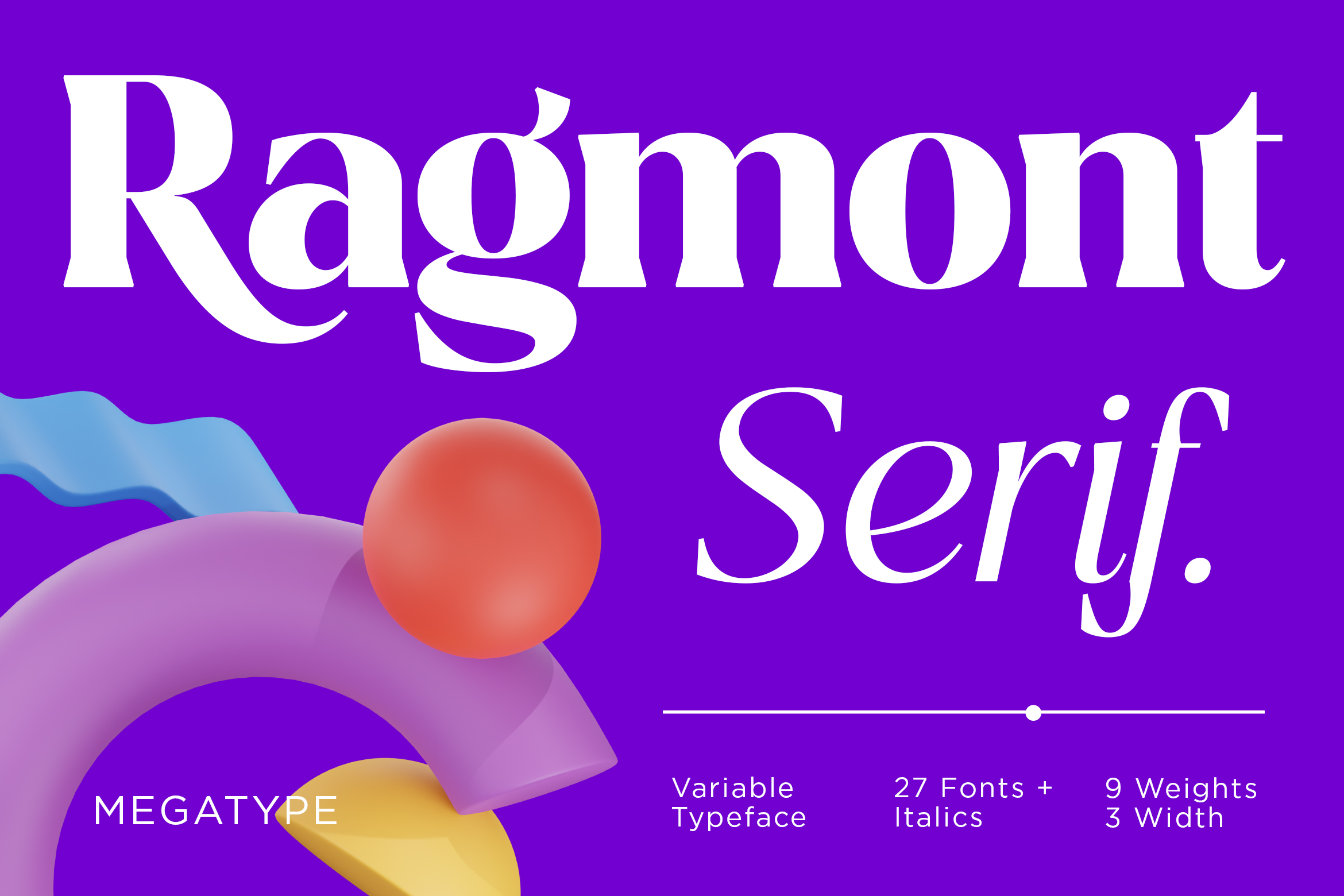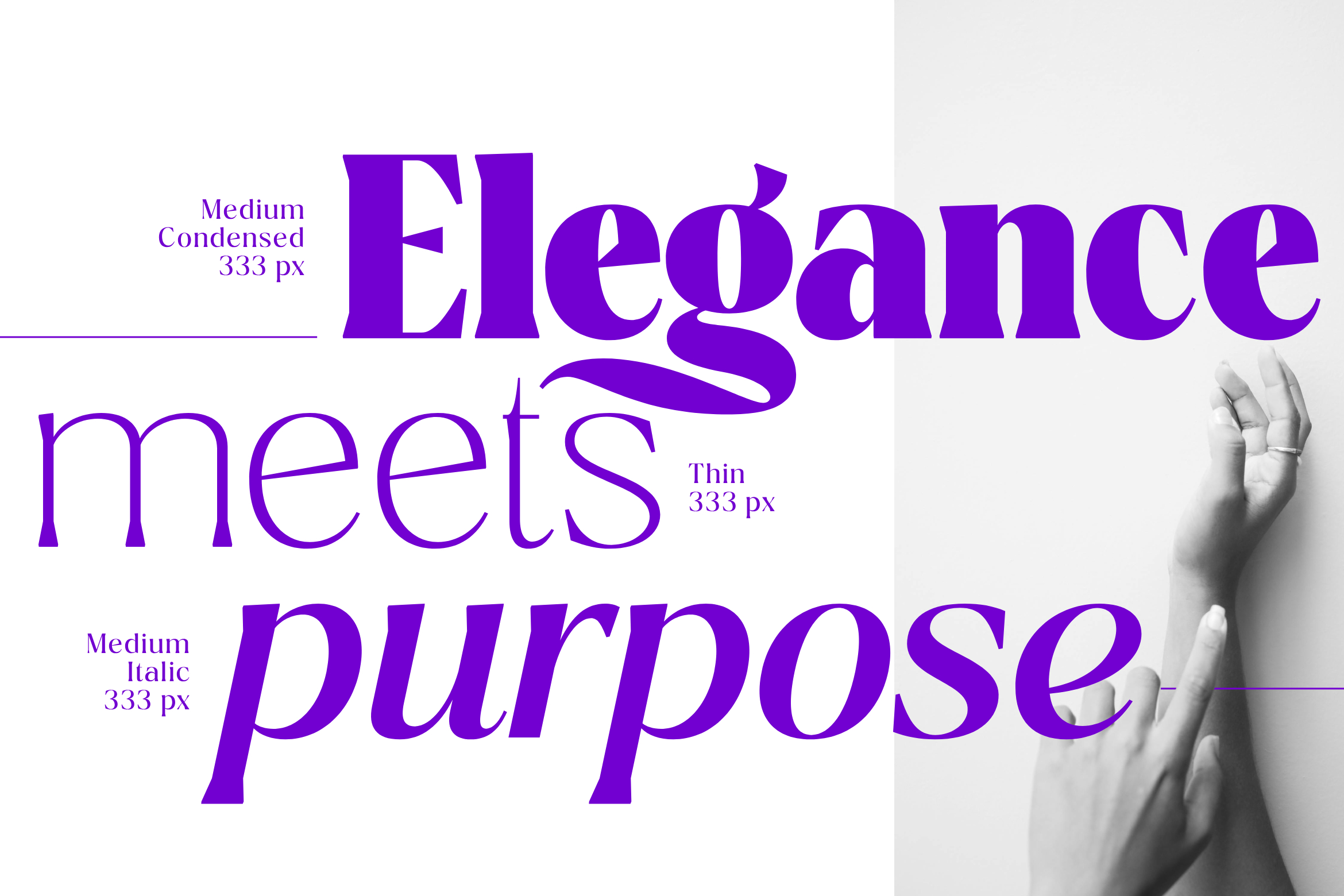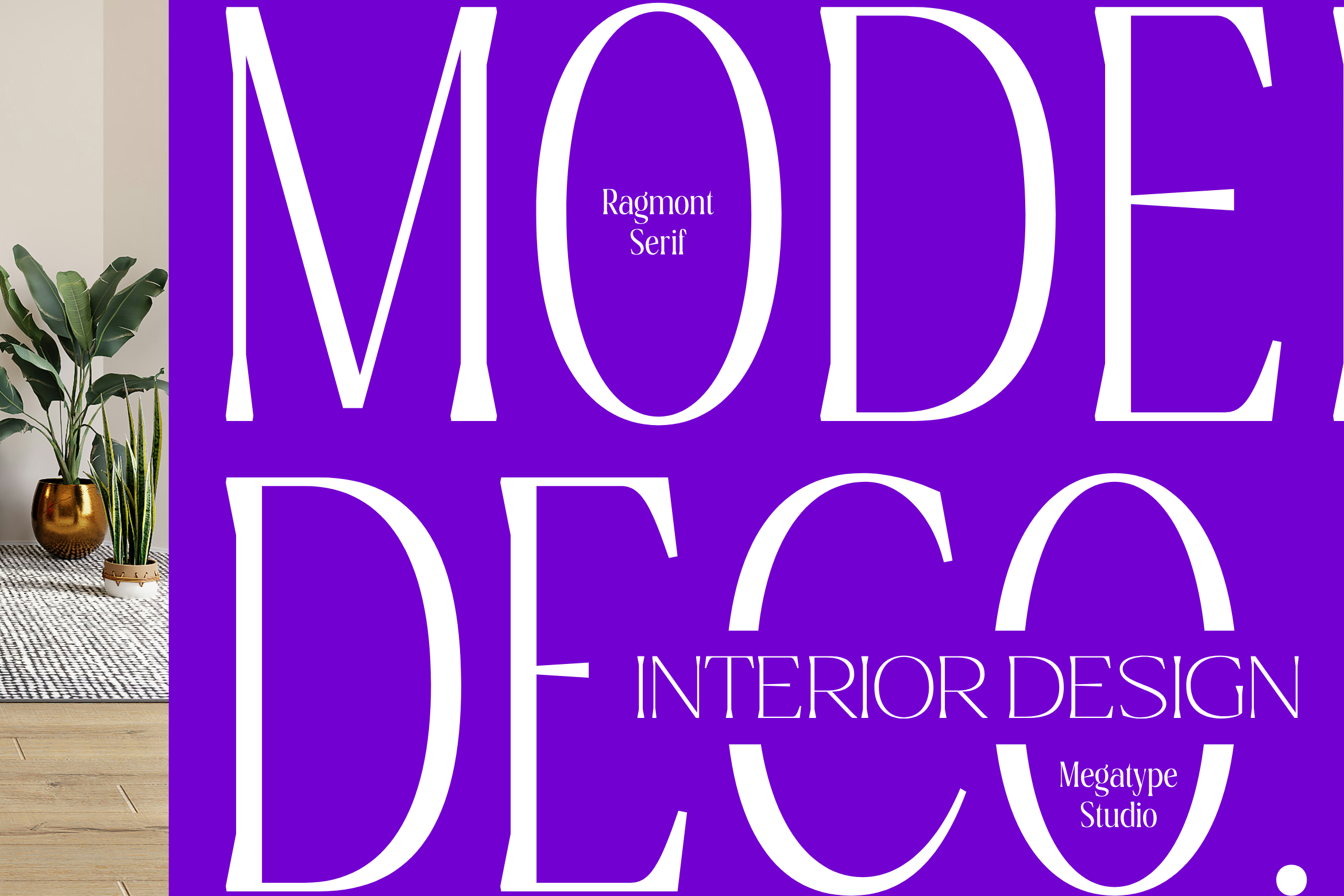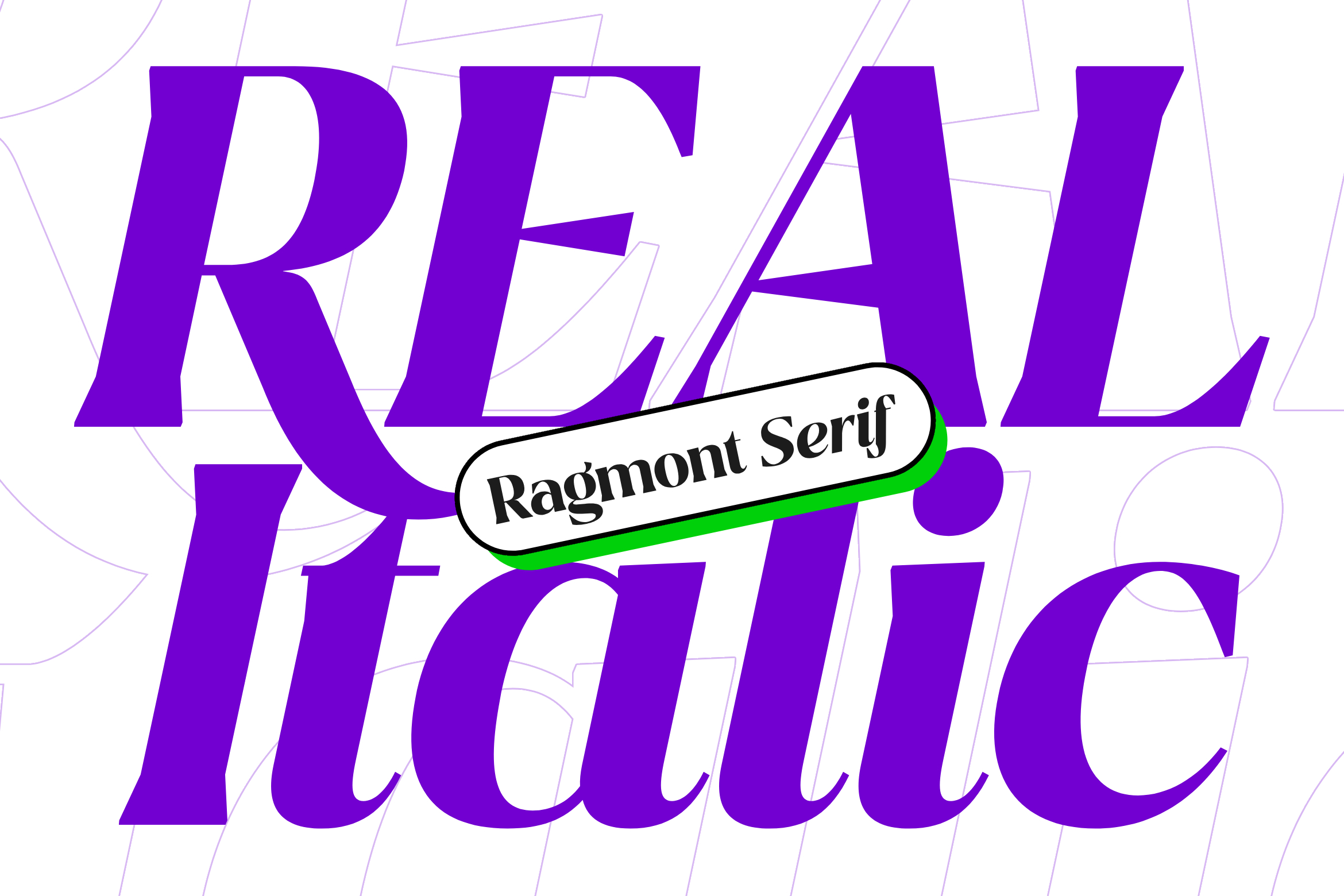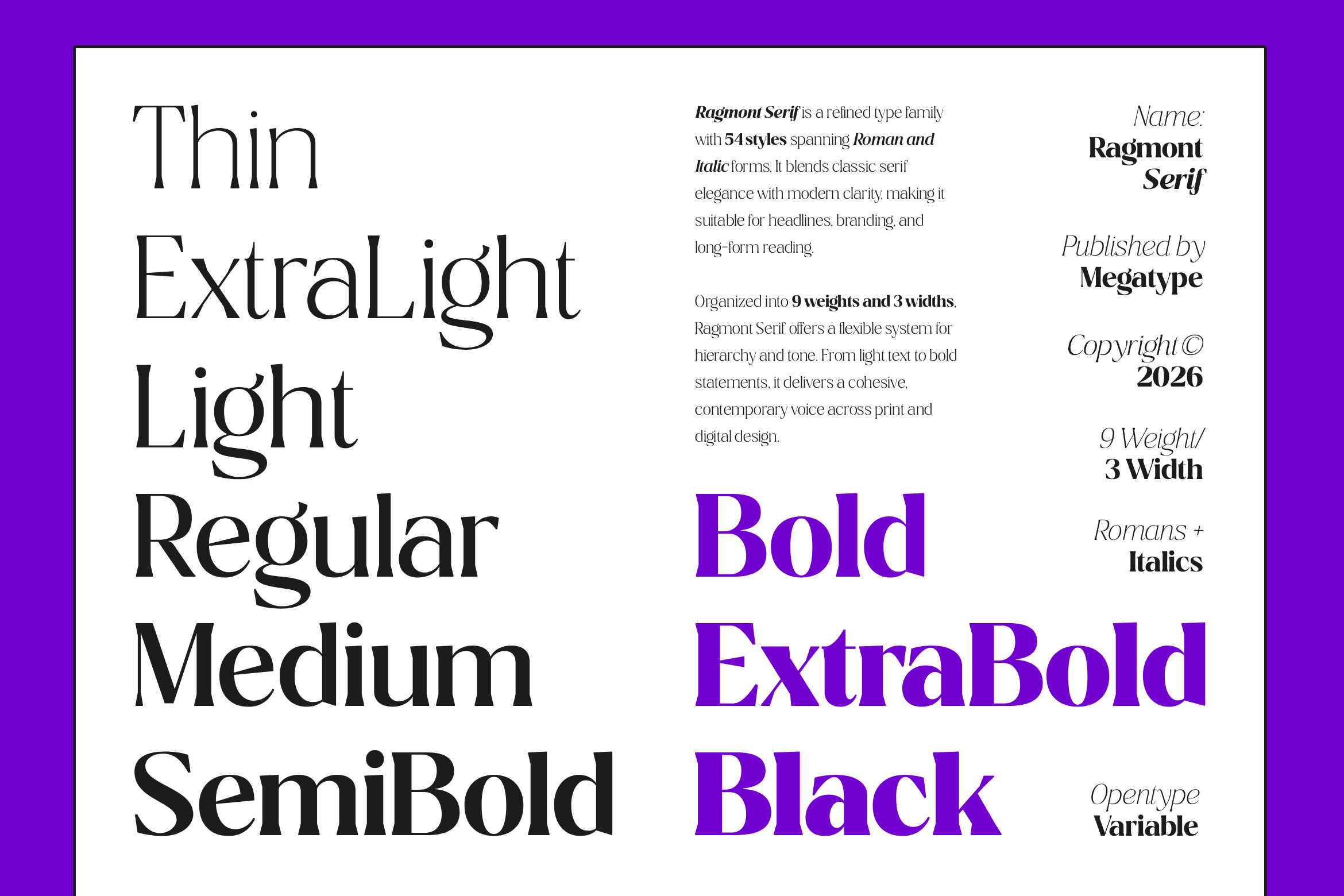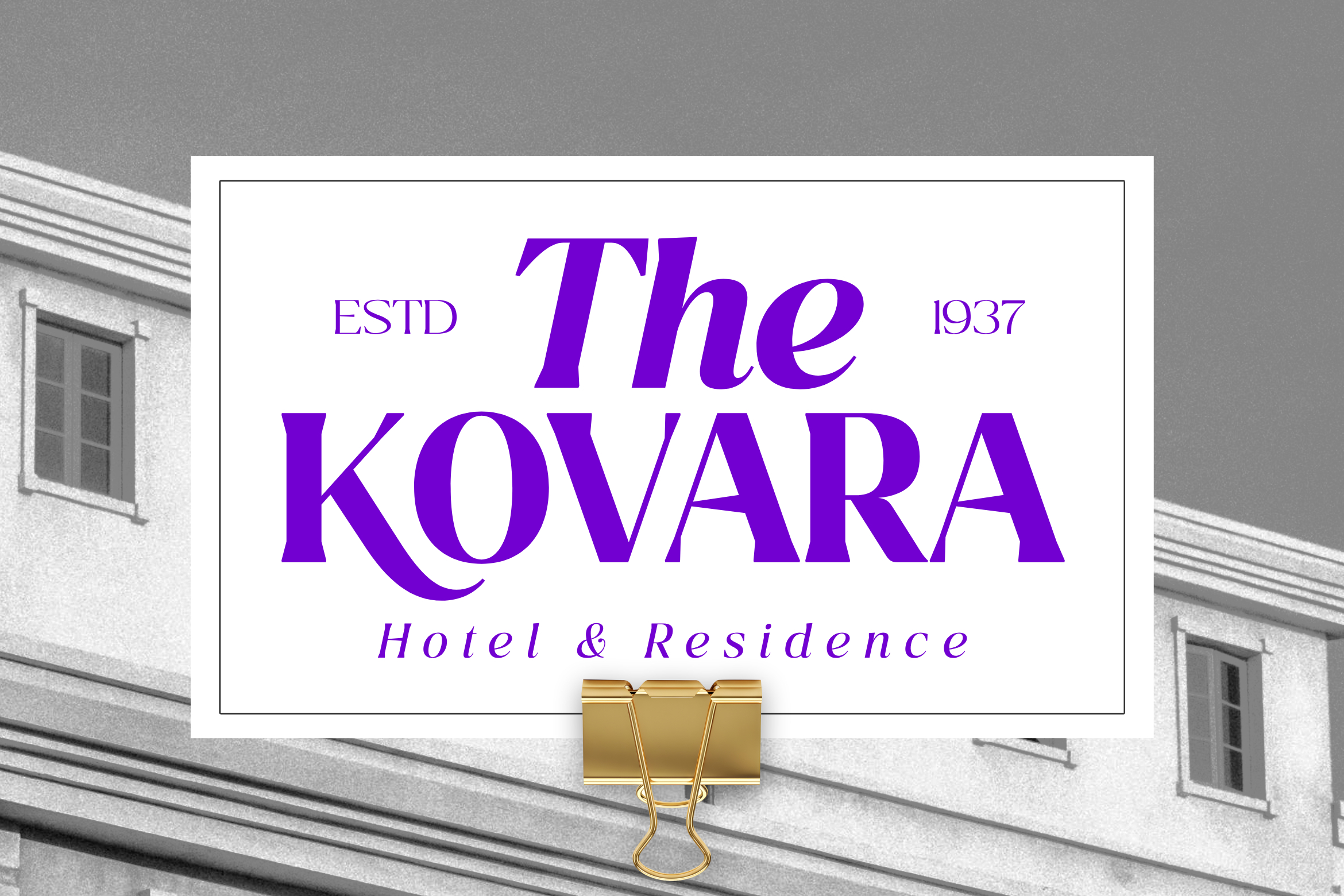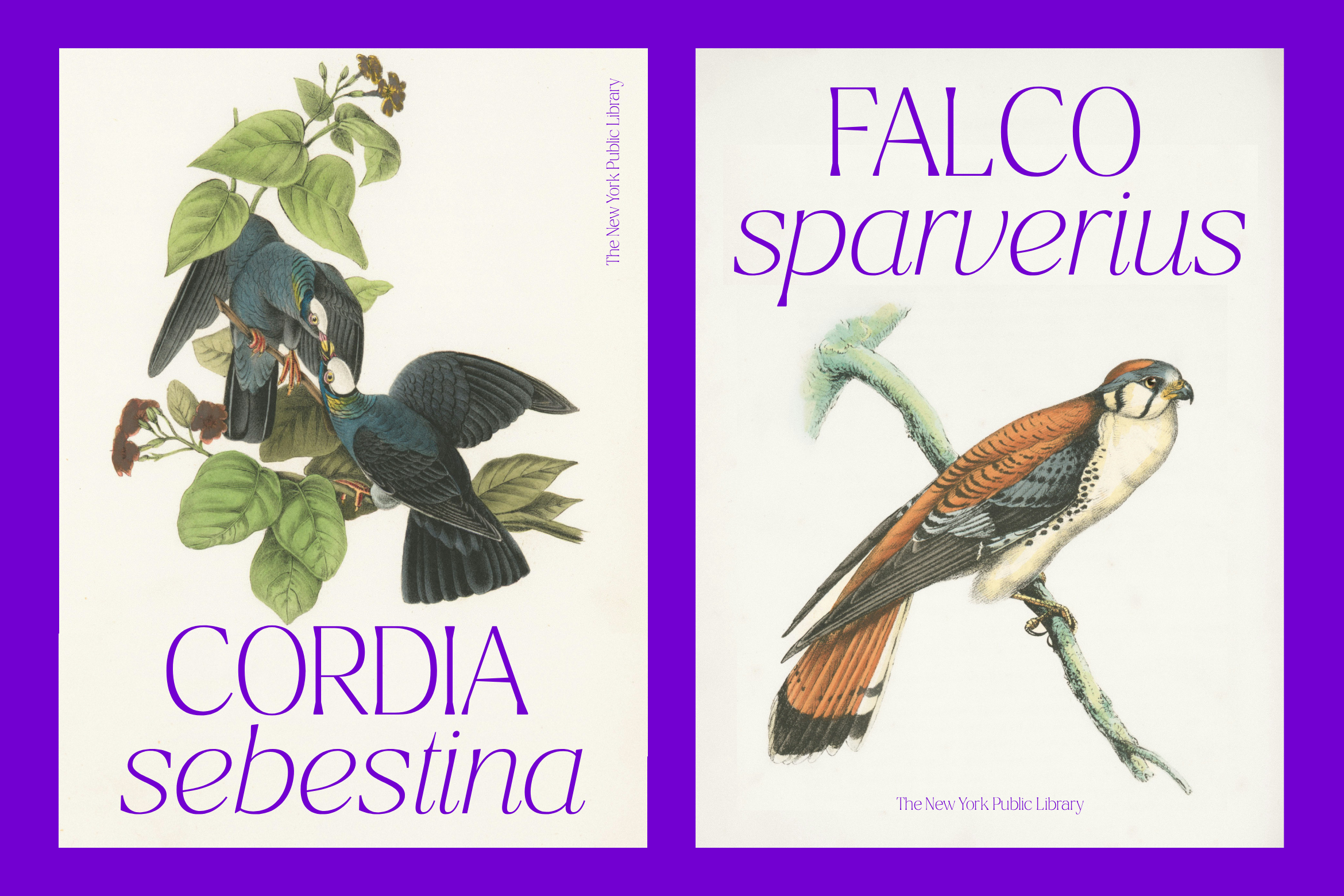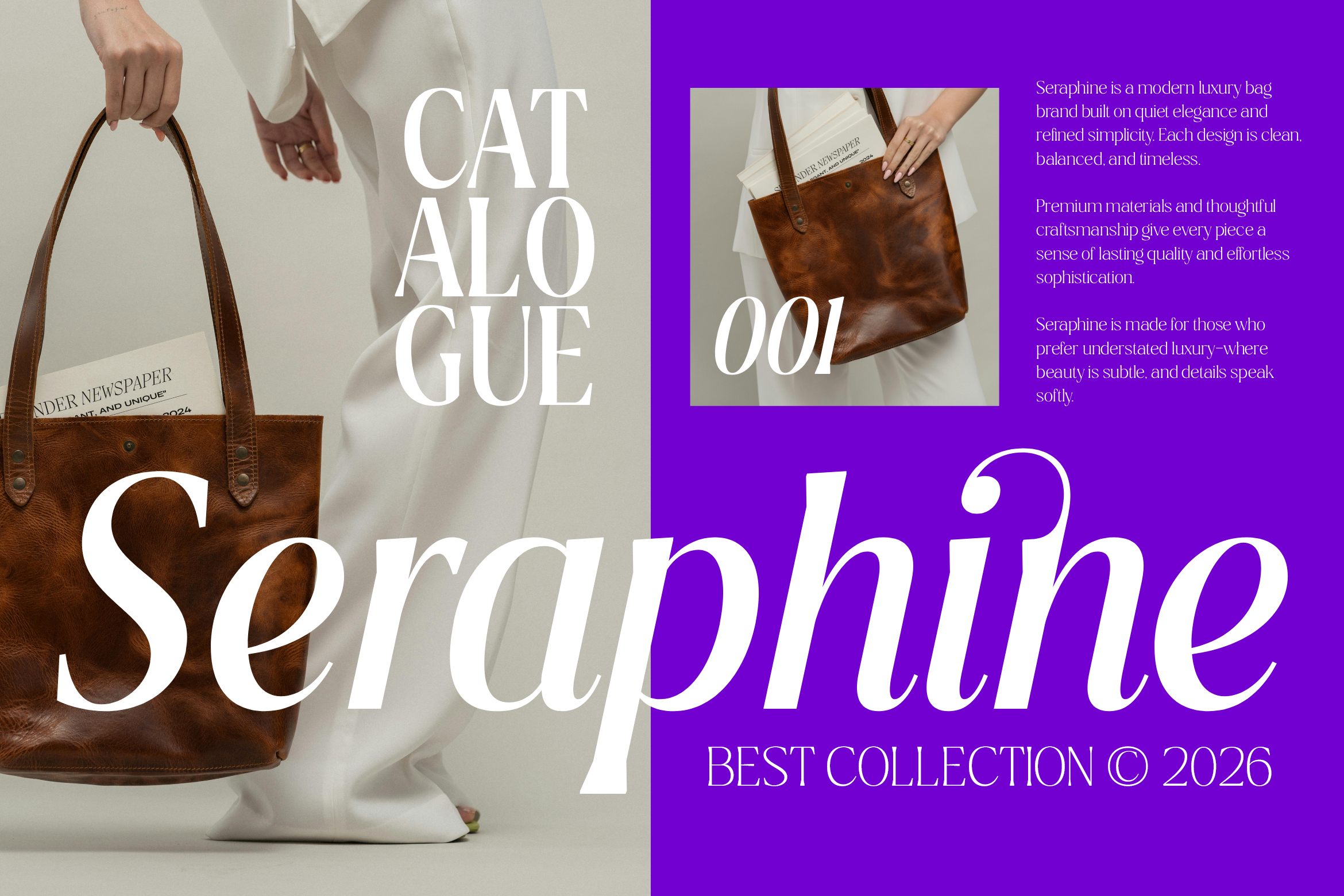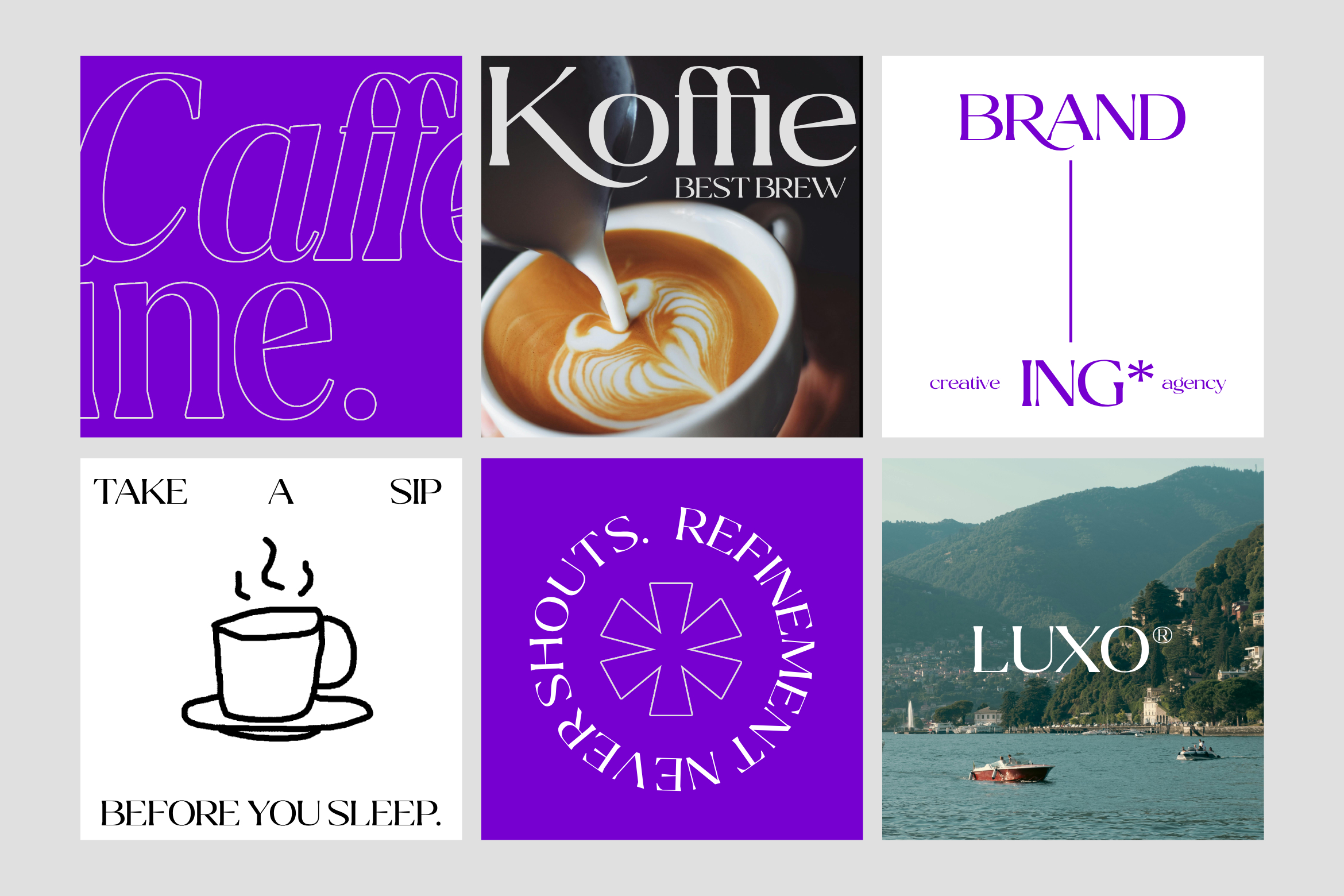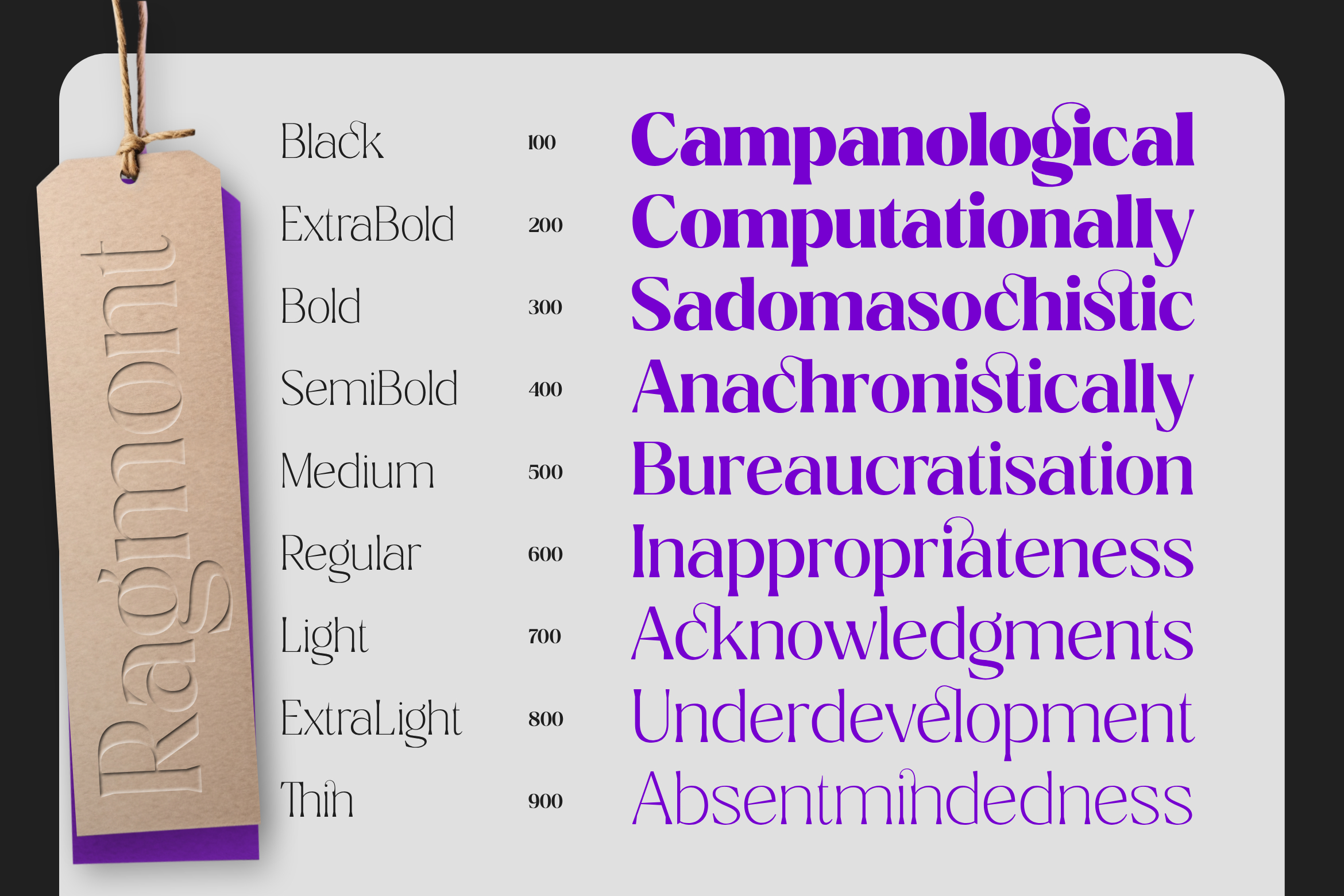
Ragmont Serif is a modern–classic serif typeface that blends the elegance of traditional letterforms with a contemporary touch. Its character is defined by smooth thick–thin contrast, refined serif curves, and well-balanced proportions that feel luxurious yet clean. Featuring 9 meticulously balanced weights from Thin to Black, each weight is complemented by 6 width and style variations—including Italic, Condensed, and Expanded—giving you a total of 54 dynamic styles to work with.
Ragmont delivers an editorial and premium impression, with expressive details that draw attention without sacrificing readability, whether used at large display sizes or medium text settings.
As a modern serif, Ragmont Serif is highly versatile thanks to its range of styles and weights. It can appear dramatic and distinctive when used for headlines, while remaining polished and professional in more informational layouts. Its elegant, sophisticated, and subtly artistic tone makes it ideal for designs that aim to convey a strong identity and high aesthetic value.
Ragmont Serif is well-suited for projects such as Branding & visual identity (logos, fashion brands, luxury brands), Editorial & publishing (magazines, books, feature articles), Posters, album covers, and creative promotional materials, Websites and landing pages with a premium feel, Product packaging (cosmetics, perfumes, lifestyle products) and many other design projects.
Ragmont Serif